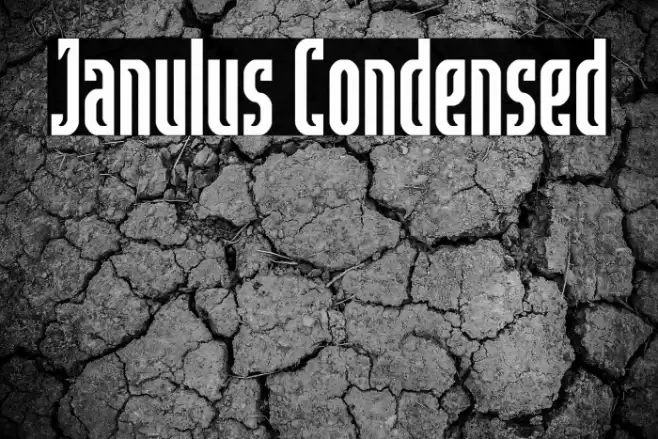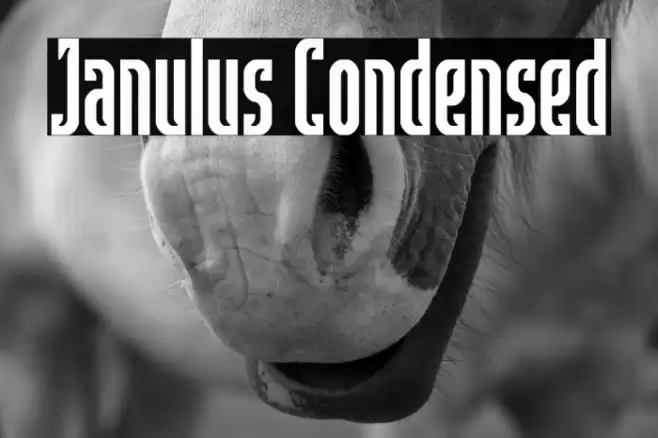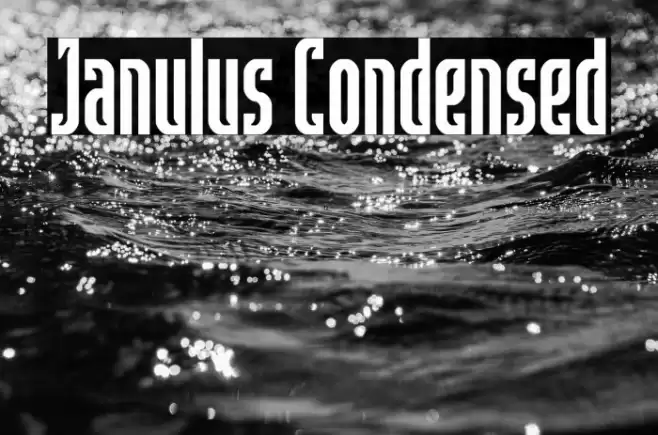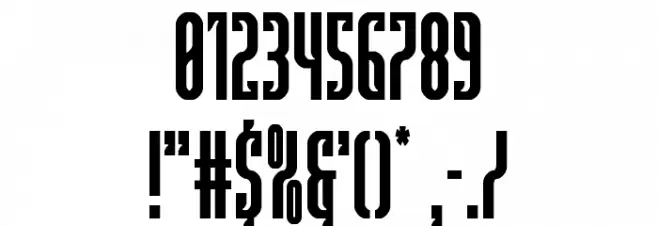
Janulus Condensed Font
Janulus Condensed Description
This font features a bold and condensed style with a modern and geometric appearance. The characters are tightly spaced, creating a compact and impactful look. The uppercase letters are tall and narrow, while the lowercase letters maintain a similar condensed form. The numbers and special characters follow the same design principles, ensuring consistency throughout. The font's high contrast in stroke thickness adds to its striking visual appeal, making it suitable for attention-grabbing designs.
A bold, condensed font with a modern geometric style and high contrast from Uncategorized fonts.
- Proposed Projects: Ideal for headlines, posters, branding, and any project requiring a strong visual impact.
- Character Spacing: Tight